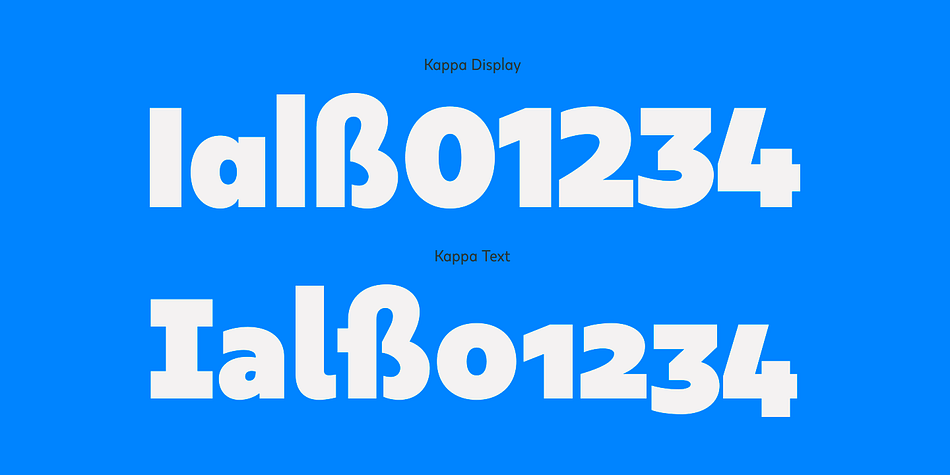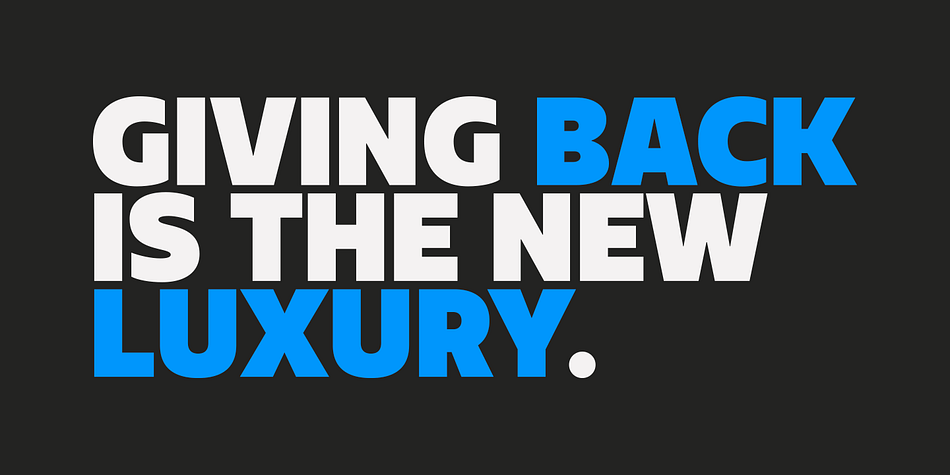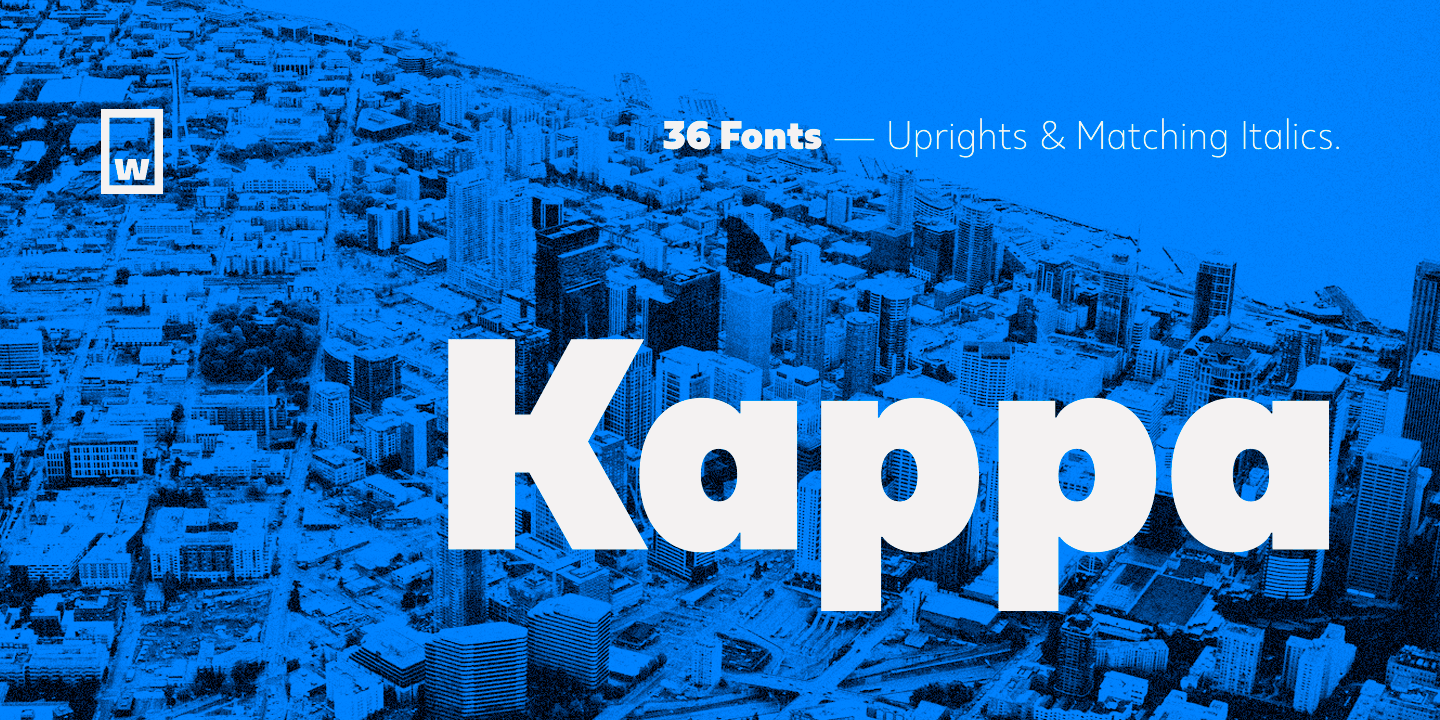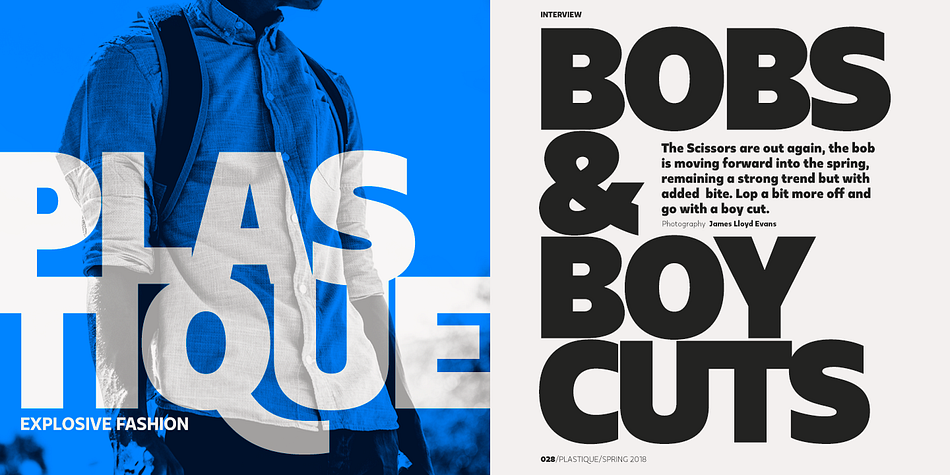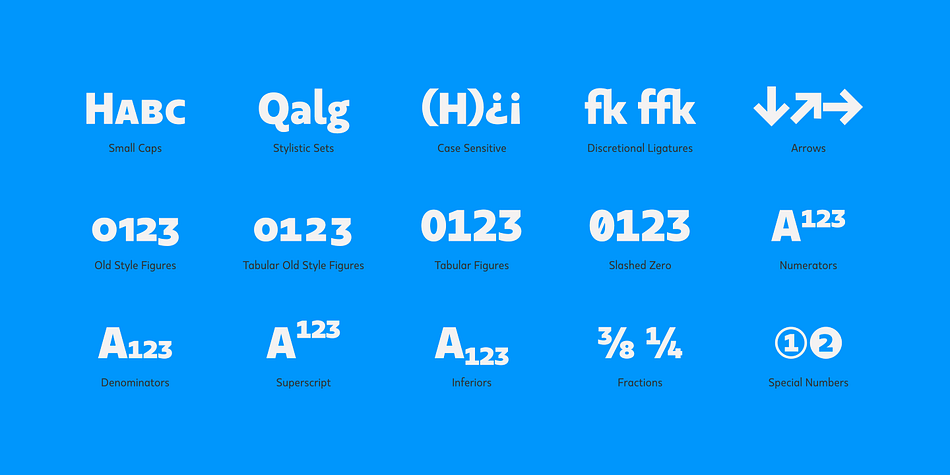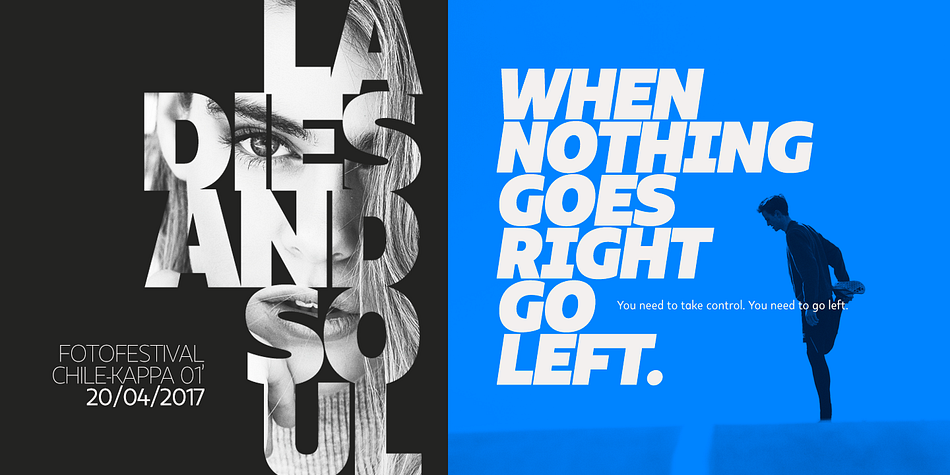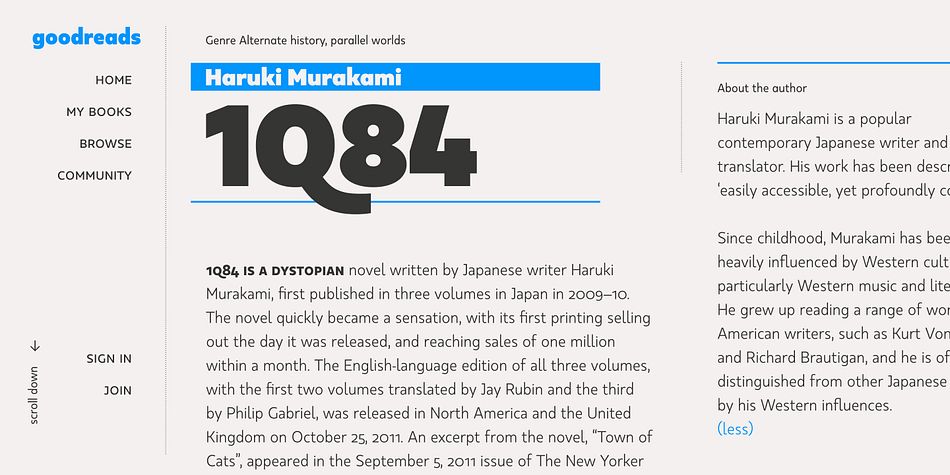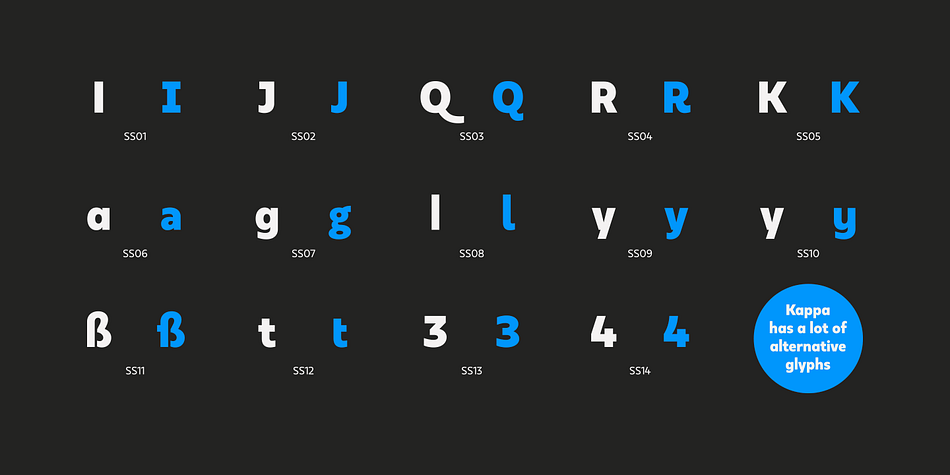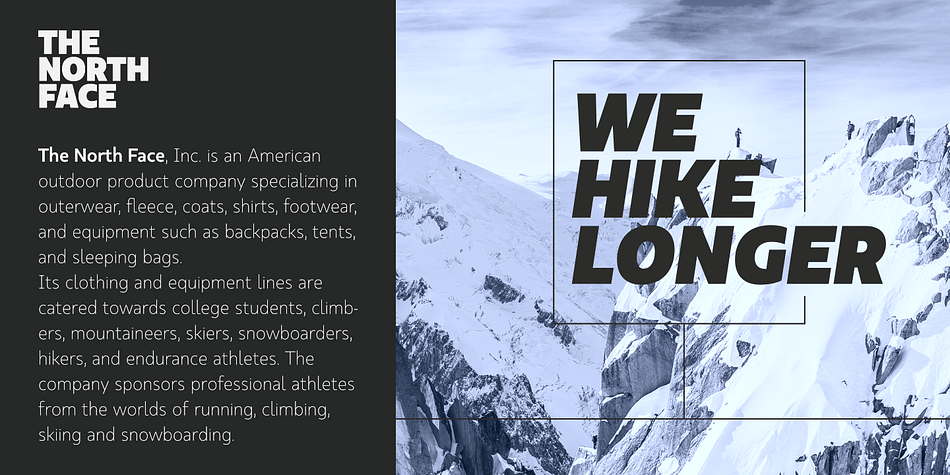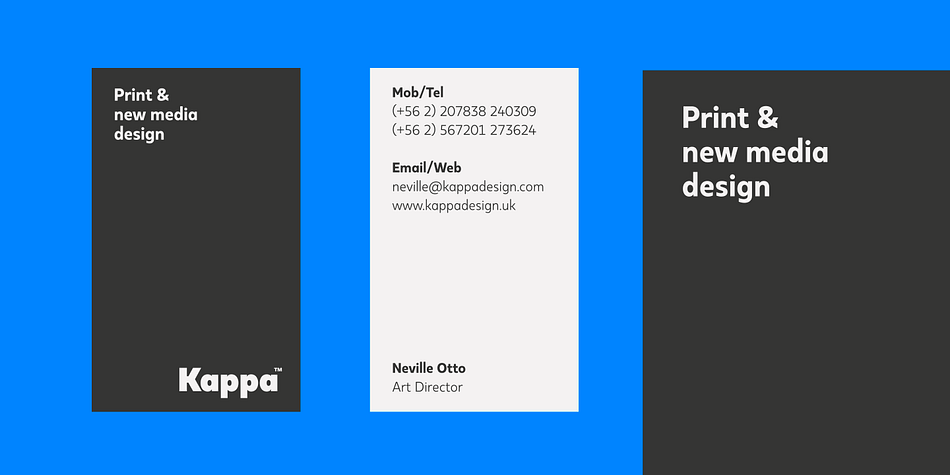
Designed by Salvador Rodríguez and Diego Aravena, Kappa is a sans serif font family. This typeface has thirty-six styles and was published by W Type Foundry.
Kappa is a modern sans serif with humanistic and geometric features. Its structure is slightly narrow to fit in a greater range of platforms (moreover if you print it, you may save a lot of paper), and its height is higher allowing a great legibility in small sizes. This family is composed with the display version and the text version providing a broad espectrum of solutions, making this family easier and friendlier to use.
Designed with a powerful OpenType features in mind. Each weight includes alternate characters, ligatures, fractions, special numbers, arrows, extended language support , small caps and many more.. Perfectly suited for graphic design and any display / text use. The 36 fonts are part of the larger Kappa super family.